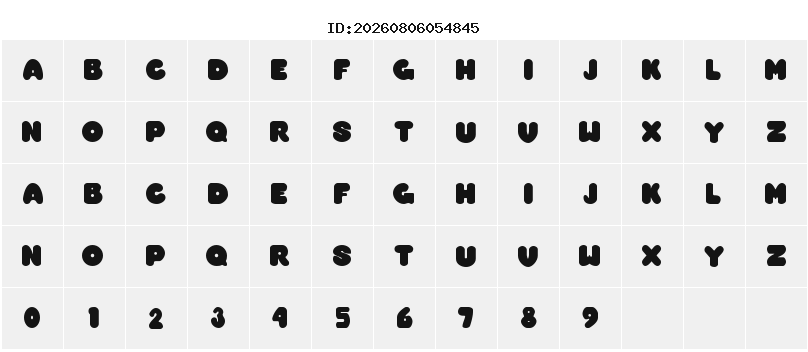
Overmuch Preview
• Font Name: Overmuch
• Font ID: Overmuch
• Full Font Name: Overmuch Regular
• PostScript Name: Overmuch
• Designer: Digital Graphic Labs
• Manufacturer: Digital Graphic Labs
• Description: This heavy, black face demands attention without looking sterile.
About Overmuch.ttf
Overmuch.ttf is a modern, elegant sans-serif font designed for ultimate readability and visual harmony. Perfect for branding, headlines, web design, and print materials.